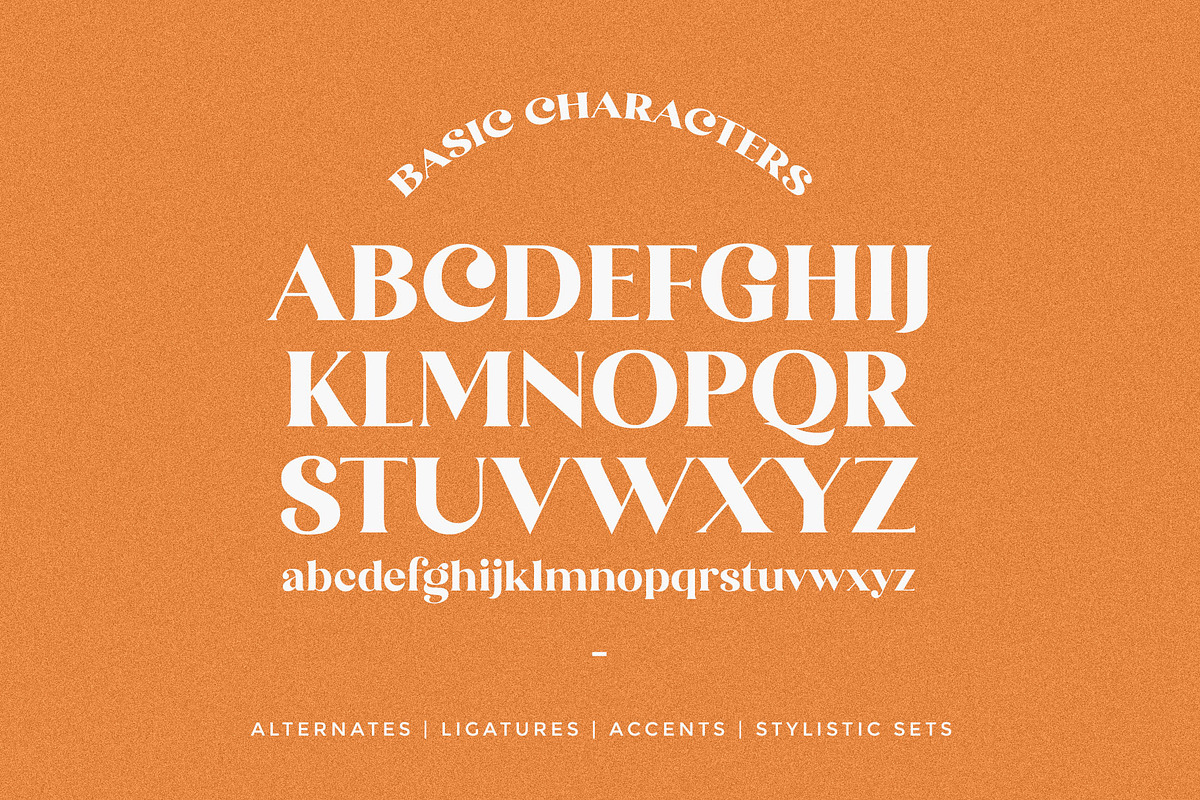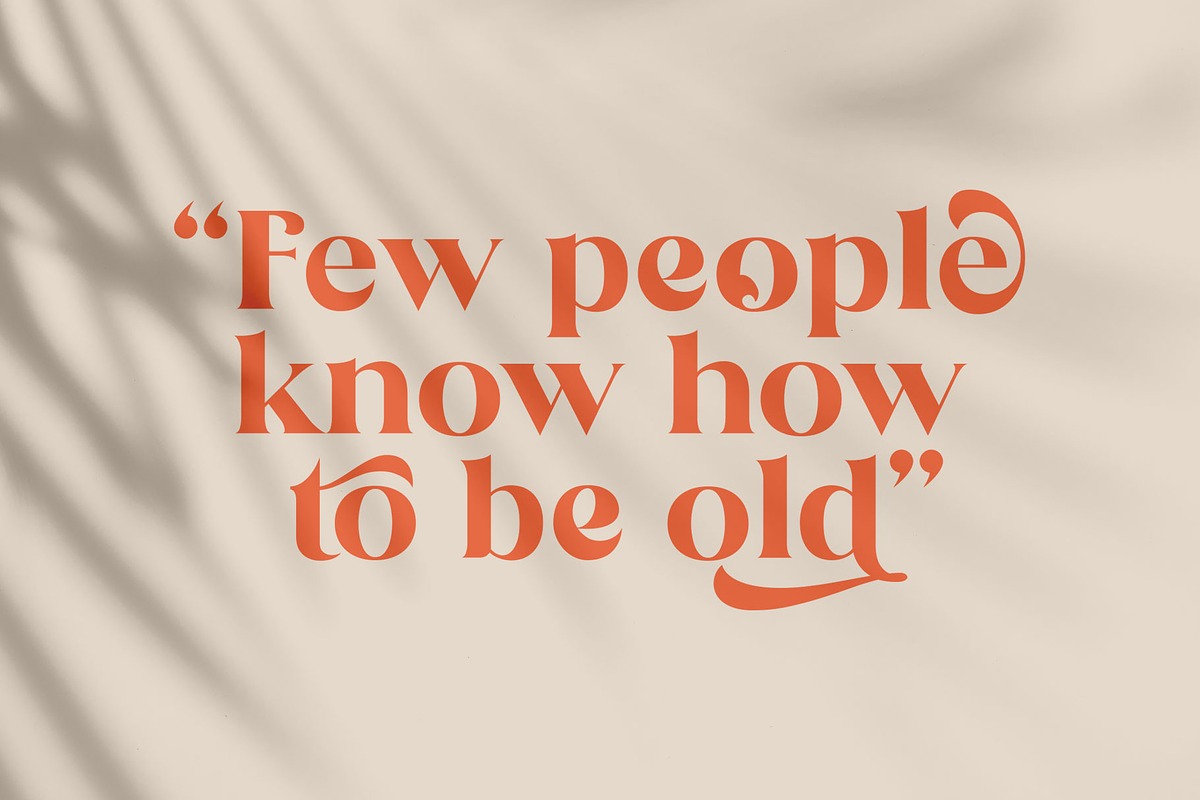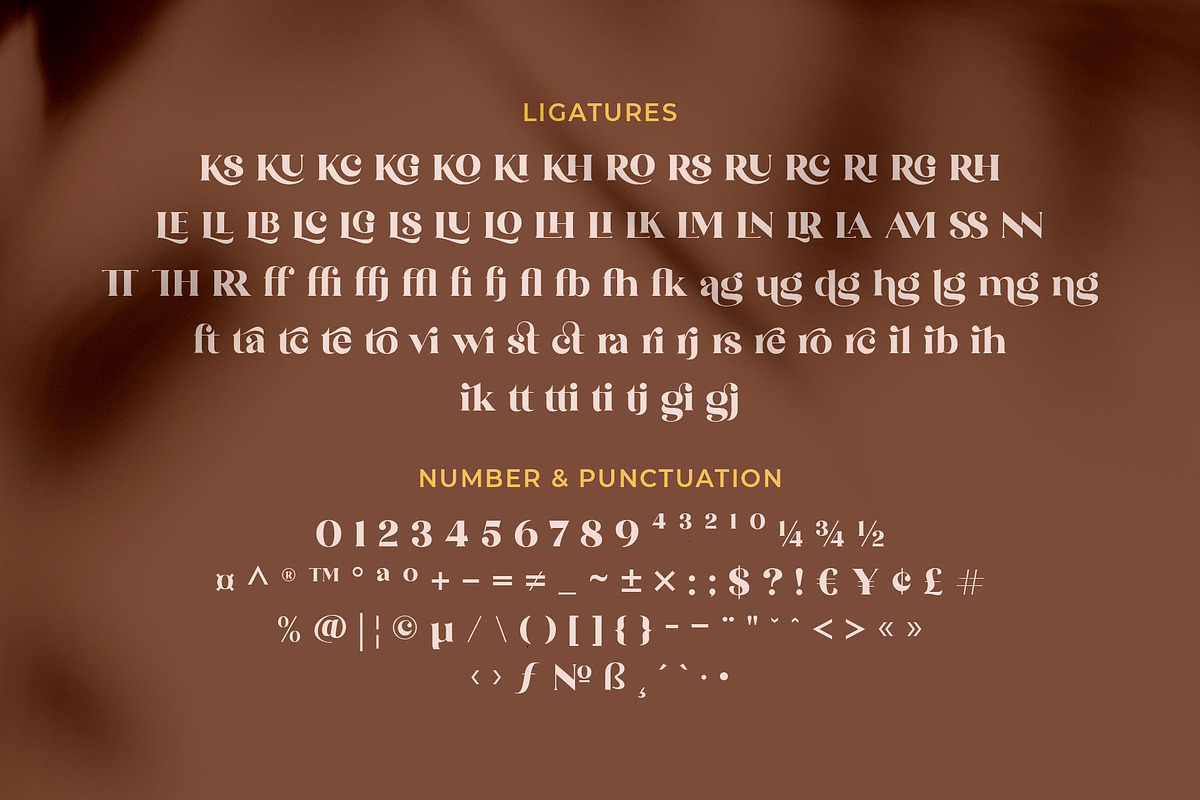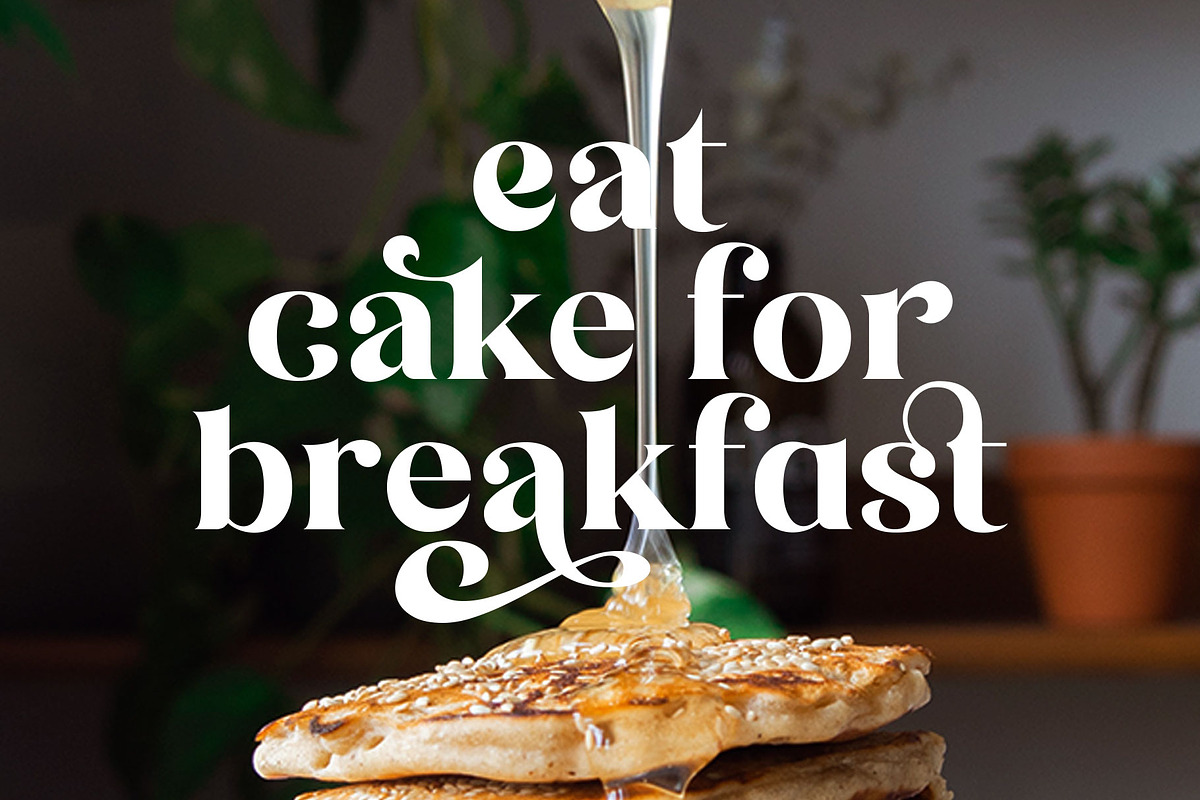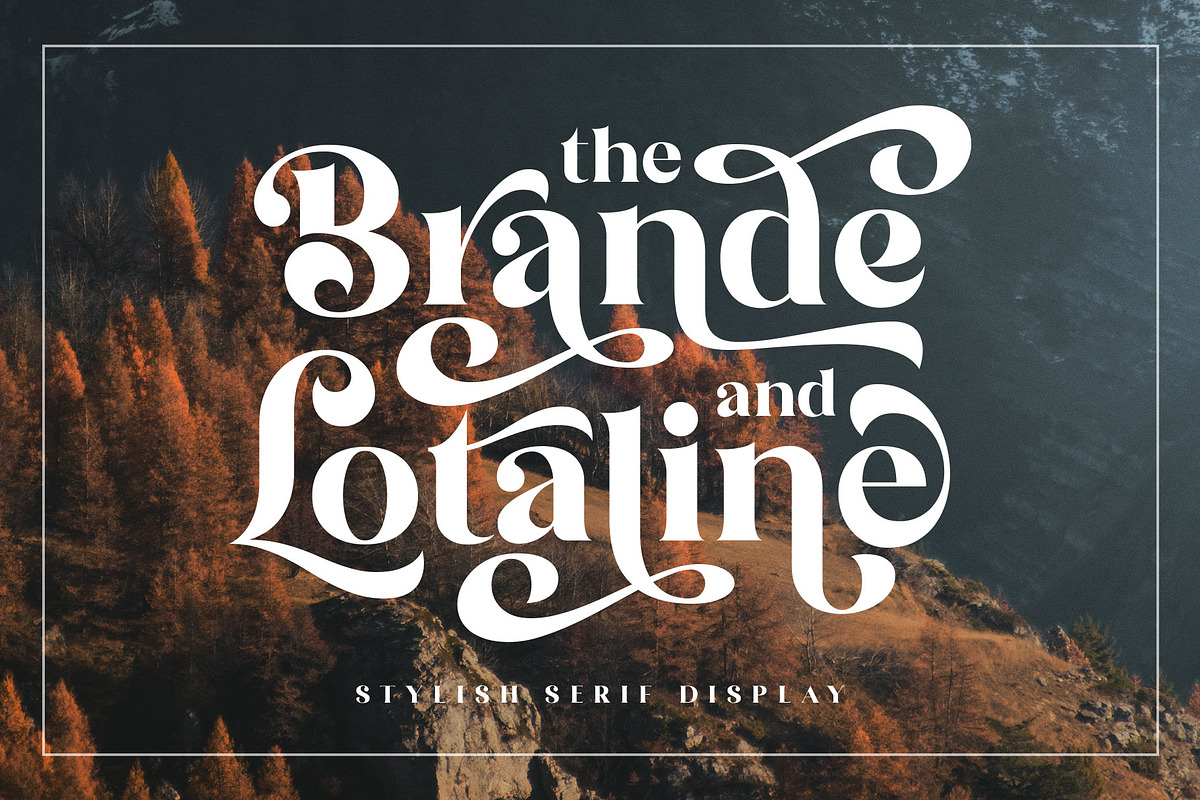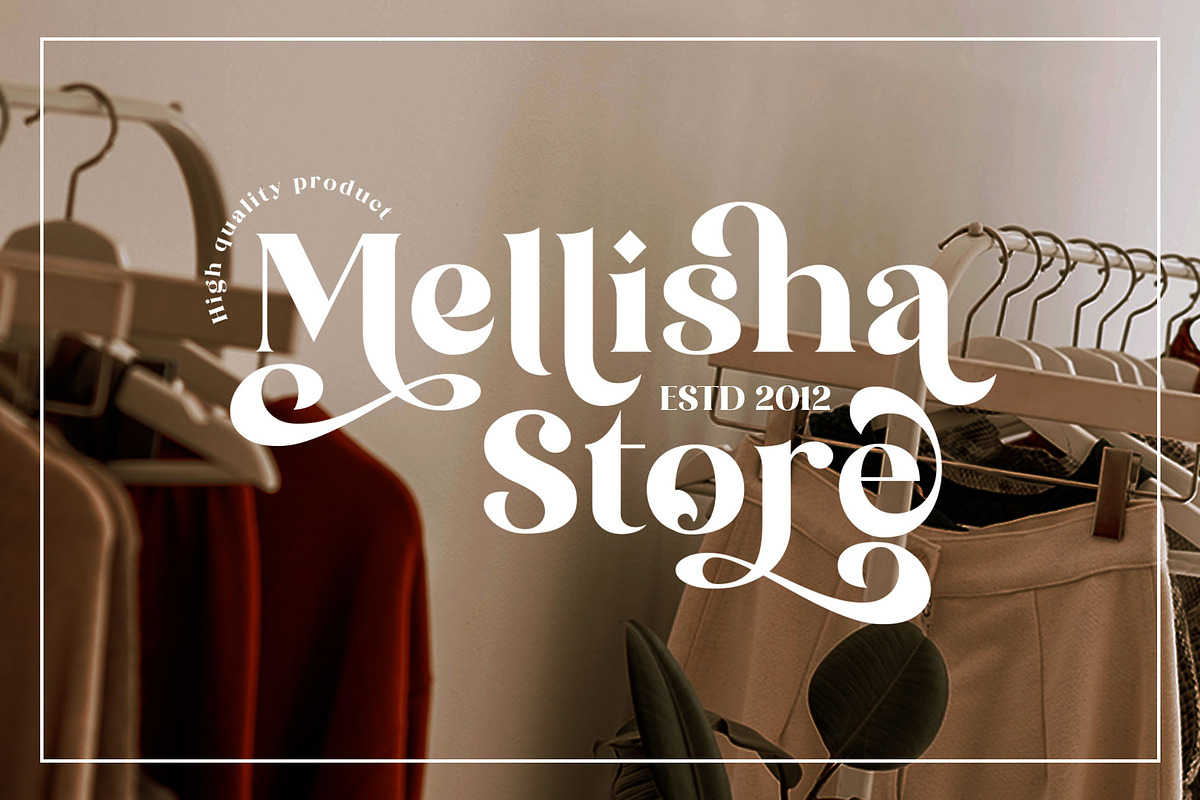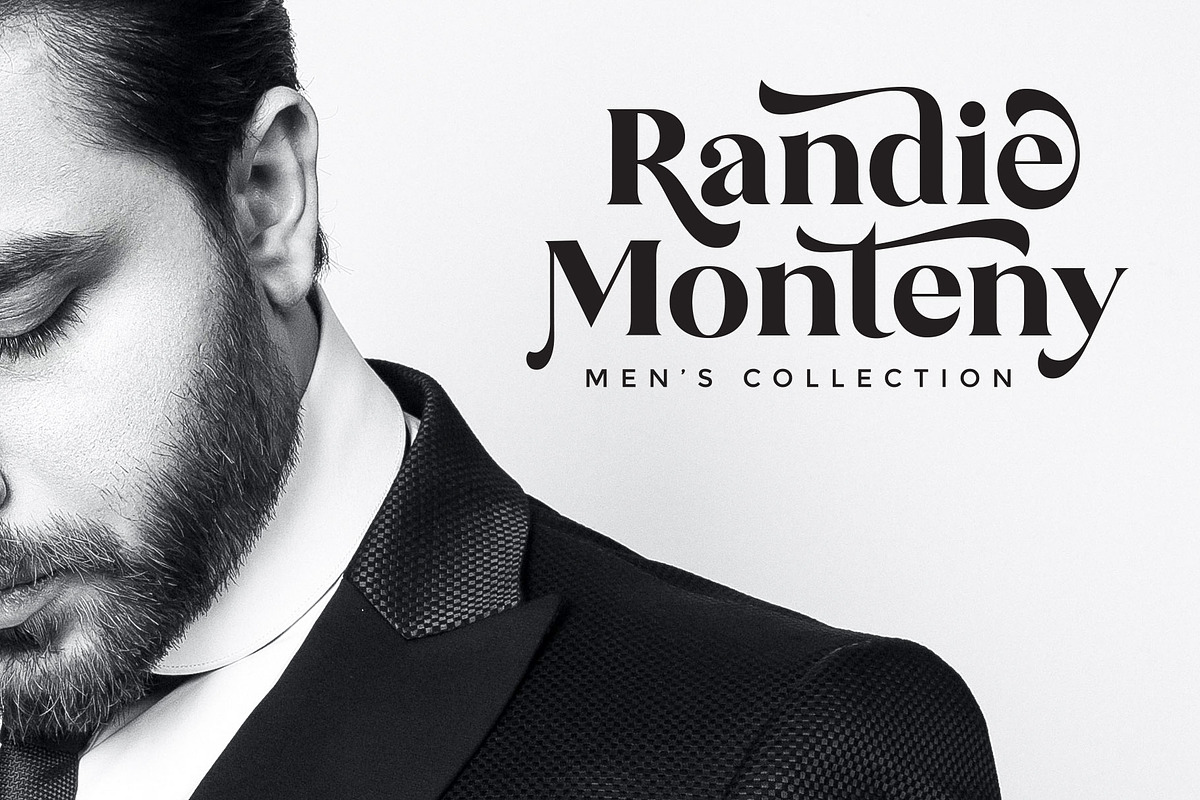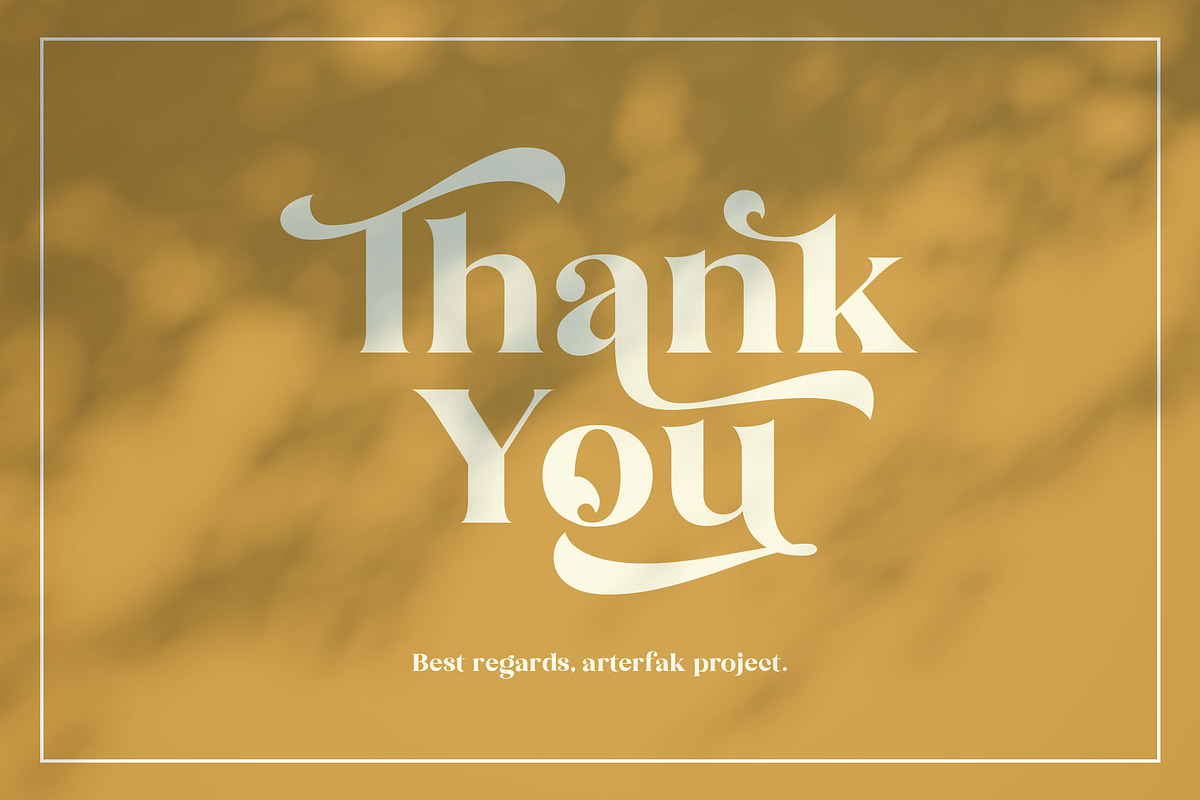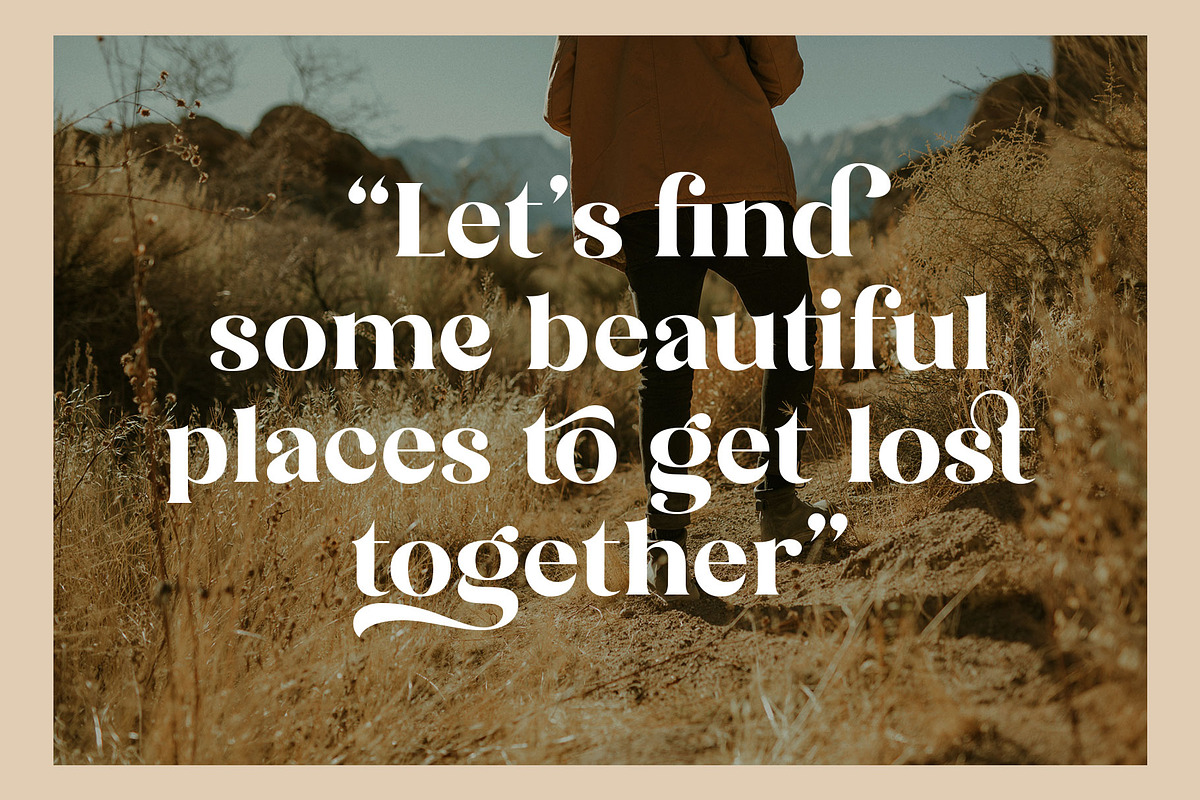
The Brande and Lotaline [UPDATED]
The Brande and Lotaline is a classy modern serif typeface. A beautiful bold serif specially designed for display. Inspired by modern fashion and classic typography, this font equipped with hundreds of alternative characters and ligatures.
The Brande and Lotaline typeface represented luxurious, elegant, glamour, fashion, and wealthiness. This font works perfectly for logotype, invitation, cards, magazine, apparel, fashion, lifestyle, poster, social-media kit, and many more!
- Accents
- Stylistic Set 01-07